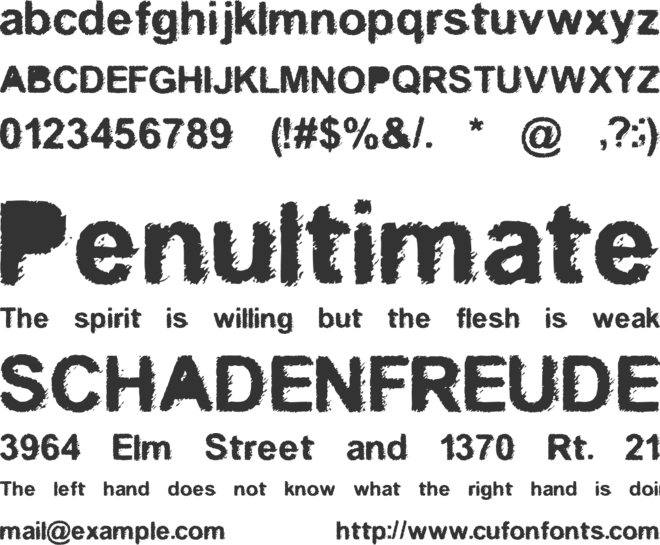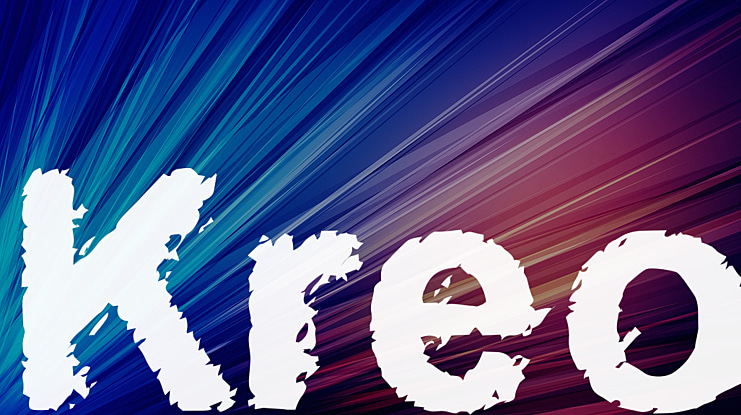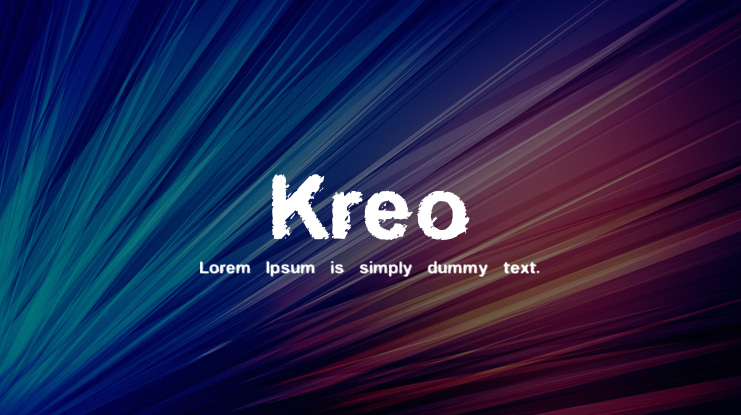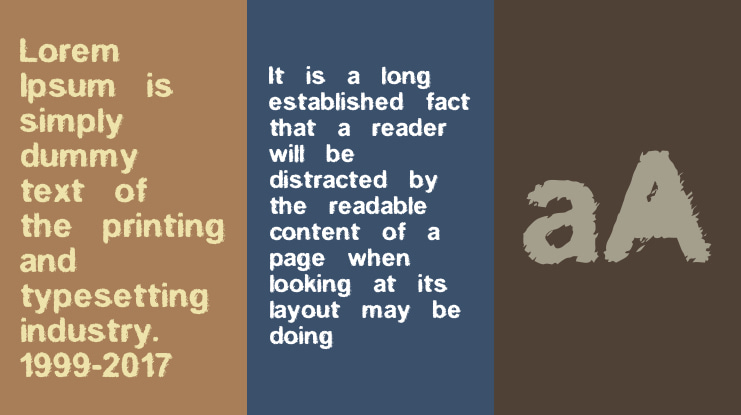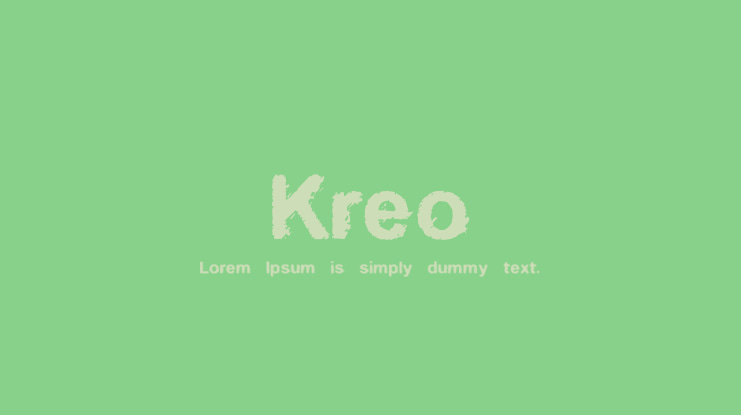
Kreo Font
Inspired by rough sketch, this typeface is perfect for adding that rough and old look to your designs. This font is free for non-commercial use. For any commercial use please contact me.